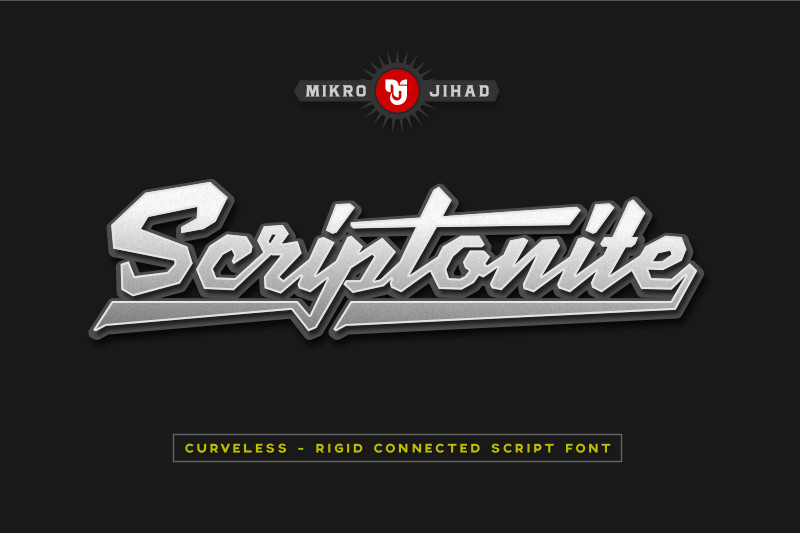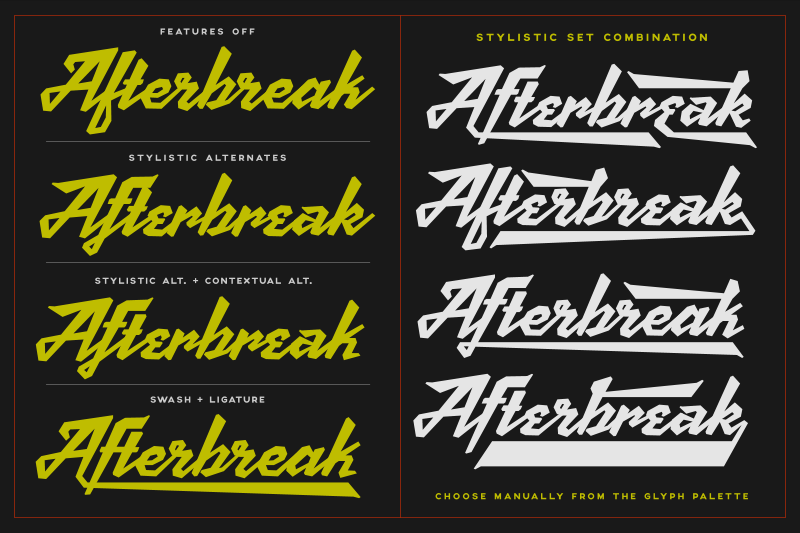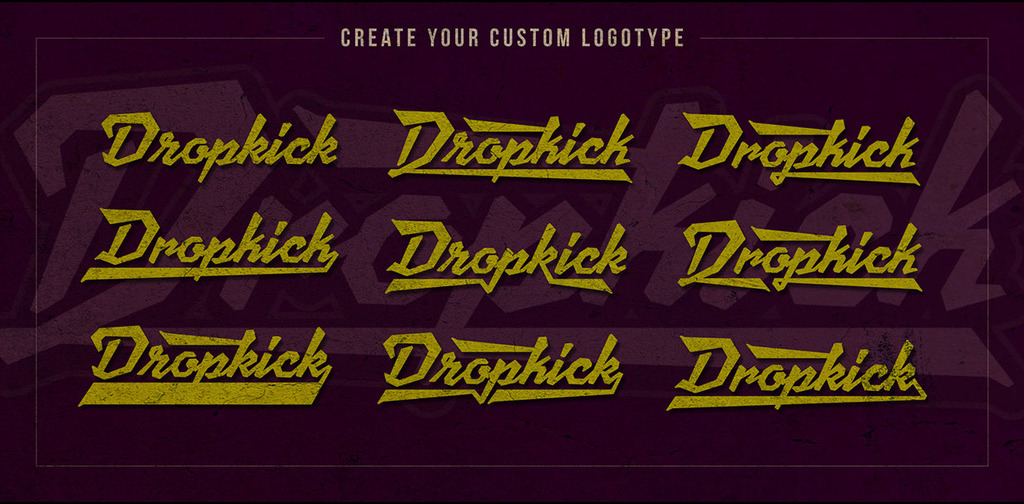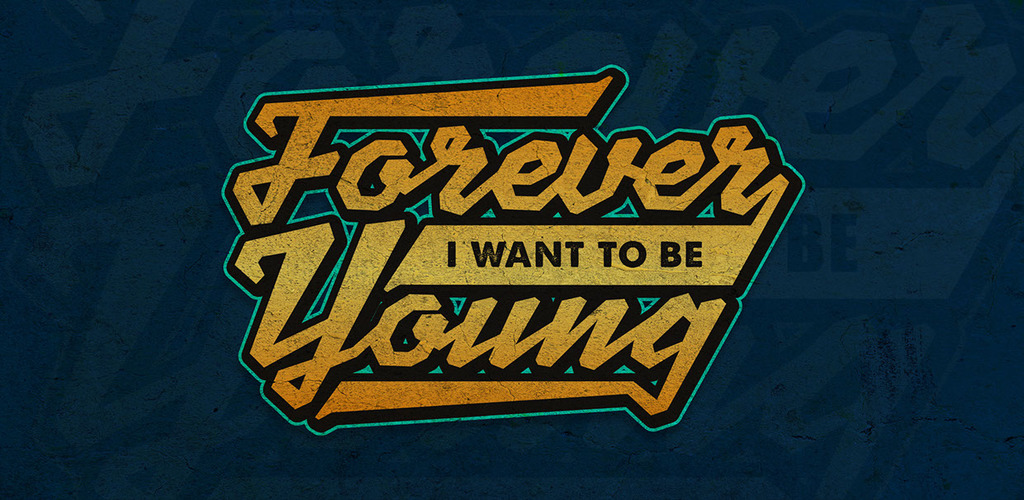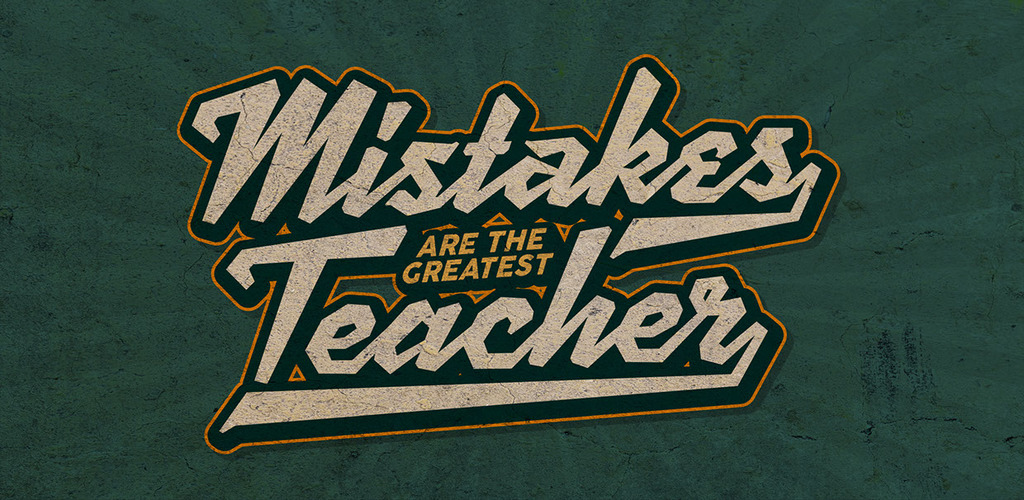
Scriptonite Font
Introducing Scriptonite: a rigid, curveless connected script font inspired from the “S” Superman logo. Very strong, masculine and unique typeface for your next design projects.
This is a stripped demo version, free for personal use. The full commercial version available at Creative Market has over 500 glyphs. The full Scriptonite is loaded with Opentype features: Stylistic alternates, swashes, contextual alternates, kerning and ligatures. So many alternates can be played. At least one letter has 3-8 alternate characters. So try this font and see what you can get.